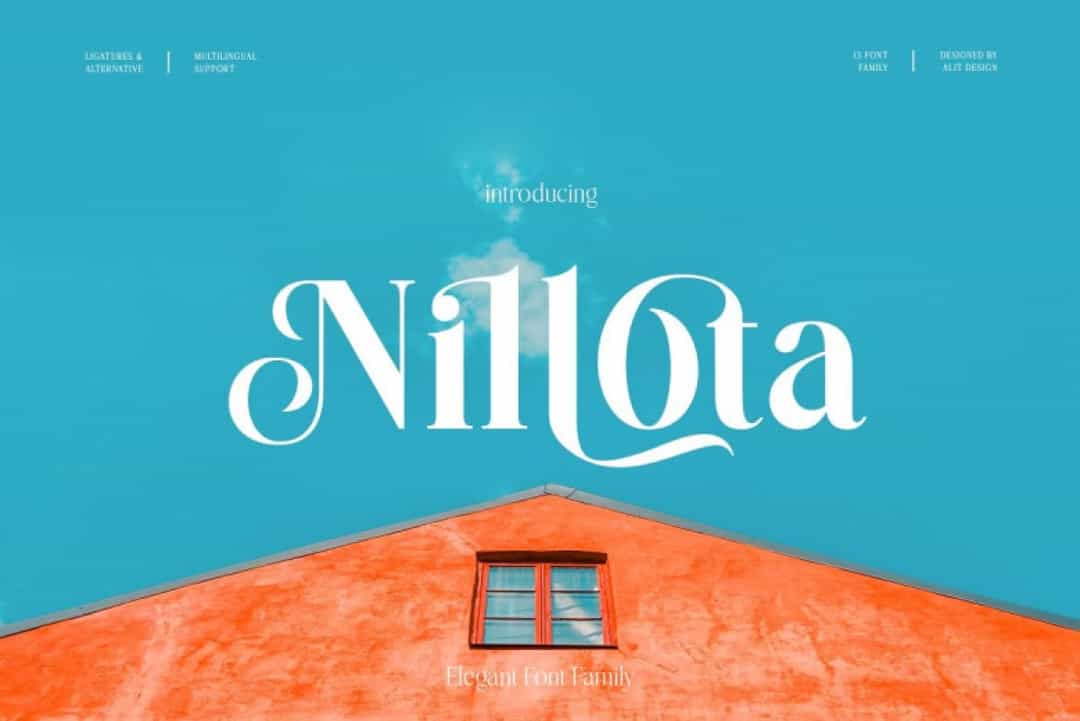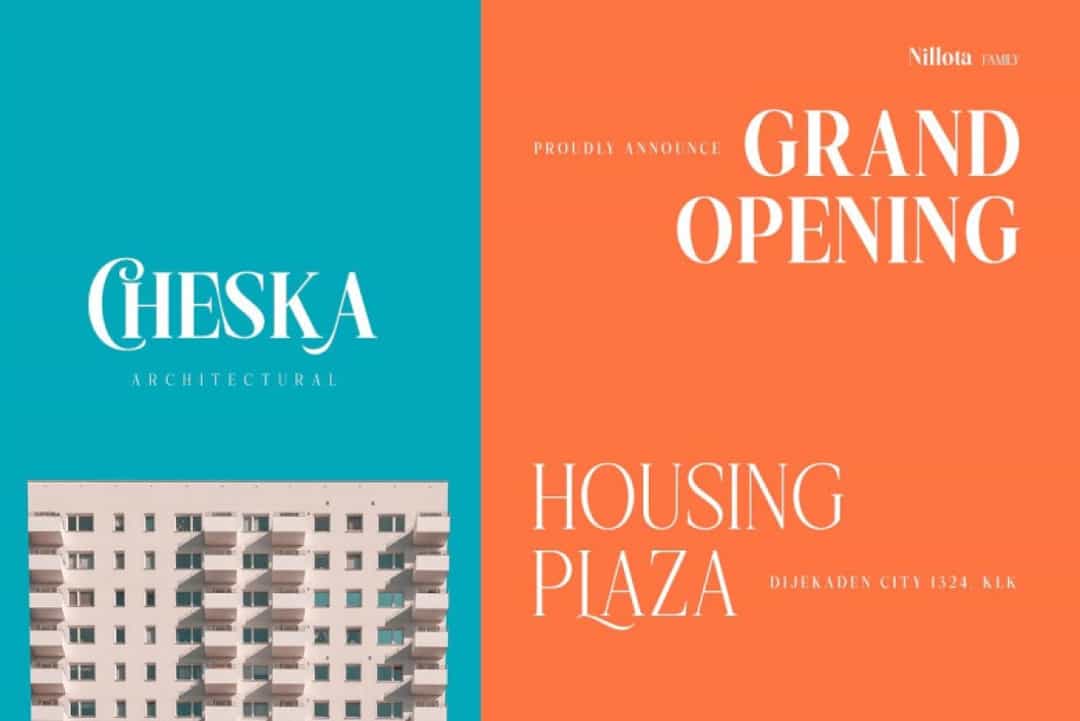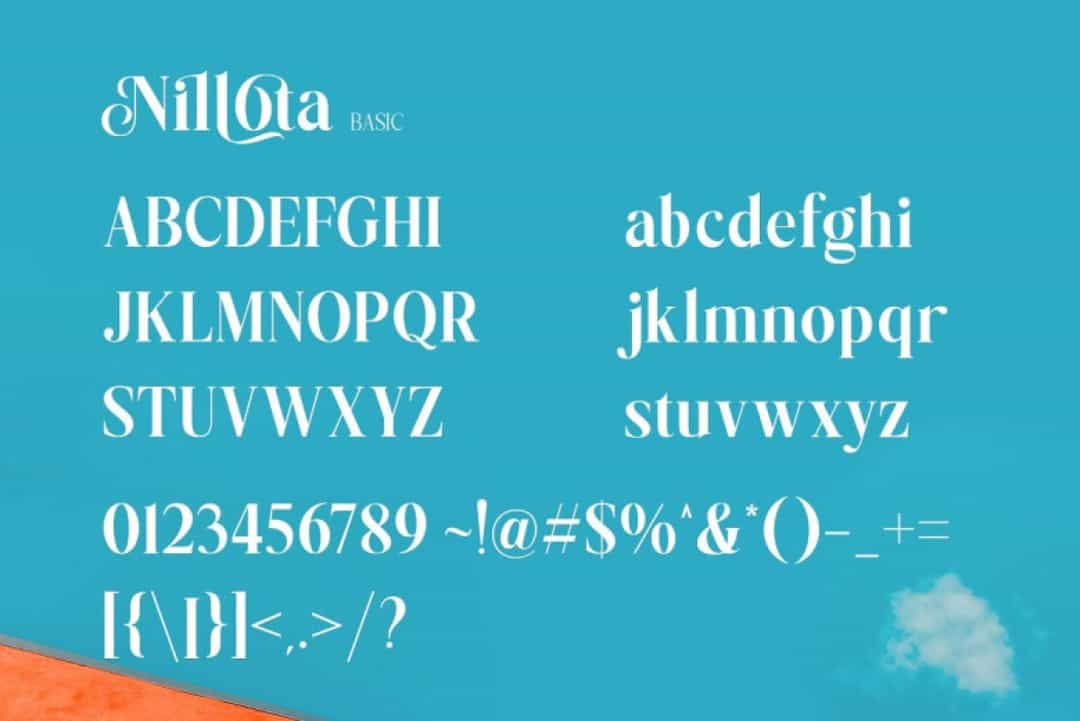
Nalota is an elegant font with the look of lively serifs. The specific forms that compose “Nilota Serif Elegant typeface” are extremely smooth and fluid, producing striking and unique curves. Elegant Serif fonts such as Nilota Serif Elegant typeface are easy to add into any style that requires elegant serif fonts; particularly ones featuring sophisticated or slick designs; not to mention that it can easily be used with non-design programs and software such as Unicode PUA support for easy glyph changes!